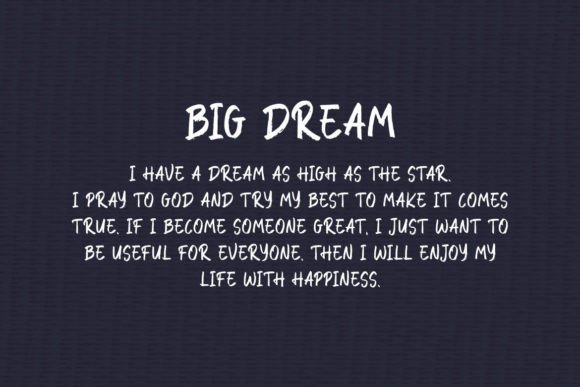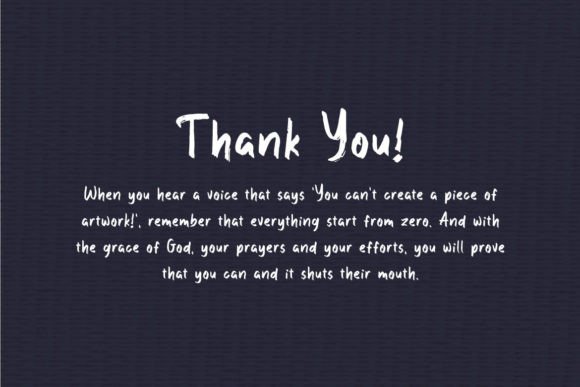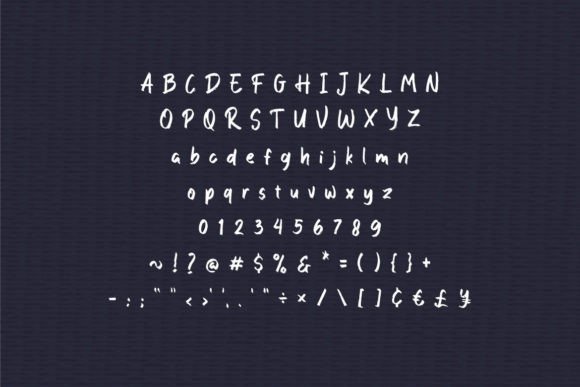
Introduction to Fisbrush Font
Do you remember that moment when you’re working on a creative project and the right font can make all the difference? The words seem to spring to life, the design flows effortlessly, and your idea is finally brought to the forefront. That’s exactly what the Fisbrush Font can do for you.
As a valuable design resource, the Fisbrush Font is a modern brush display font that’s sure to elevate your creative projects to new heights. With its high-quality design and versatility, it’s no wonder why designers are flocking to this free download. Whether you’re working on a logo, a brochure, or a social media campaign, the Fisbrush Font is the perfect addition to your design arsenal.
One of the standout features of the Fisbrush Font is its transparent background, making it easy to layer and combine with other design elements. And with its free download availability, you can get started right away and see the difference it can make in your design work.
Key Features of Fisbrush Font
- High quality font design resource ideal for creative projects
- Transparent background, allowing for seamless integration into designs
- Perfect for use in graphic design, digital art, and other creative endeavors
- Unique, hand-drawn style that adds a touch of personality to any design
Honest Review: Fisbrush Font
I recently stumbled upon the Fisbrush Font, and I must say, it’s been a game-changer for my design projects. This font has been a valuable addition to my design resource library, offering a fresh and unique aesthetic that’s perfect for creative projects.
Here are some of the things that I think work well about the Fisbrush Font:
- ✨ High-quality design that’s visually appealing
However, I do have some reservations about the Fisbrush Font:
- ⚠️ Limited character set, which may not be suitable for all design projects
Overall, I’m impressed with the Fisbrush Font. Its unique design and high-quality aesthetic make it an excellent choice for designers looking to add some personality to their creative projects. While it may have some limitations, it’s definitely worth considering for your next design project.
How to Use Fisbrush Font
Fisbrush Font is a high-quality design resource that offers a unique and creative style for your next project. With a transparent background, you can easily customize it to fit your needs.
Fisbrush Font is perfect for a variety of creative projects, including:
- Graphic design.
- Logo design.
- Branding materials.
- Print and digital advertising.
Alternatives to Fisbrush Font
Comic Sans MS is a popular, easy-to-read font that is suitable for creative projects that require a playful and approachable tone. It’s a great choice for design resources that need a friendly and approachable feel. While it lacks the high quality and versatility of Fisbrush Font, it’s a great alternative for projects that require a more casual tone.
Comparison to Fisbrush Font: Comic Sans MS is more playful and casual than Fisbrush Font, but lacks its high quality and versatility.
Great Vibes is a high-quality, elegant font that is suitable for design projects that require a sophisticated and refined tone. It’s a great choice for creative projects that need a touch of luxury and sophistication. While it doesn’t have a transparent background like Fisbrush Font, it’s a great alternative for projects that require a more polished look.
Comparison to Fisbrush Font: Great Vibes is more elegant and sophisticated than Fisbrush Font, but lacks its transparent background feature.
PT Sans
PT Sans is a high-quality, sans-serif font that is suitable for design projects that require a clean and modern tone. It’s a great choice for creative projects that need a professional and sophisticated look. While it doesn’t have the same level of creativity as Fisbrush Font, it’s a great alternative for projects that require a more traditional look.
Does the Fisbrush Font have a transparent background?